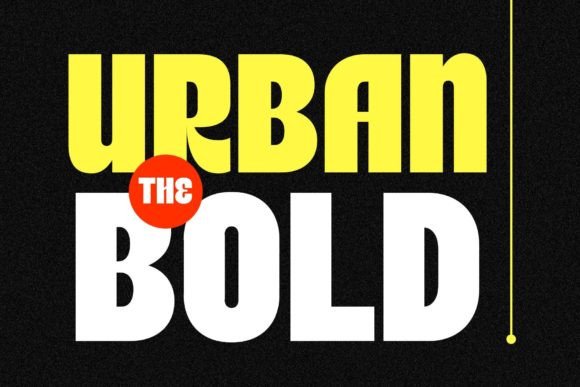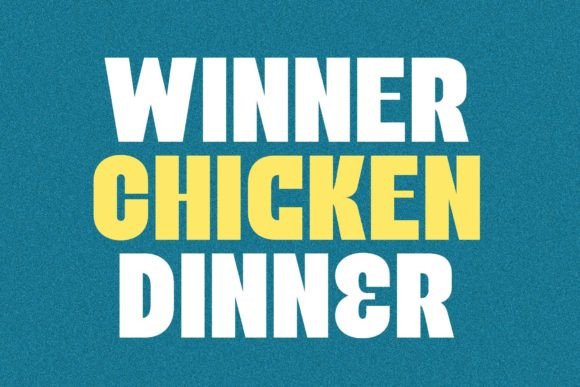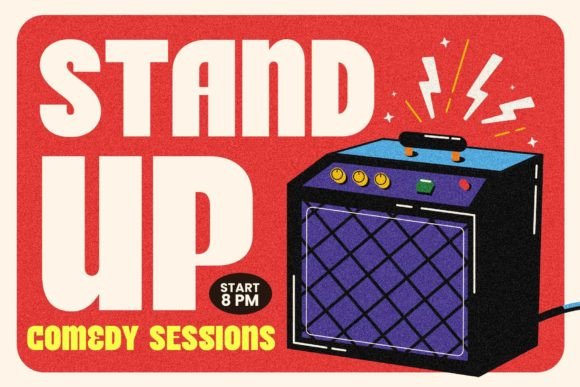
Introduction to Highfat Font
Highfat is a clearly bold condensed font, inspired by retro bold typography and modern sans serif styles, seamlessly combined into a unique, fatty condensed font.
Perfect for display purposes, Highfat commands attention, lending your design a thicker, more solid appearance This font comes equipped with stylistic alternates and ligatures, allowing for creative mixing and matching to achieve joyful designs.
Key Features of Highfat Font
Why Choose Highfat Font?